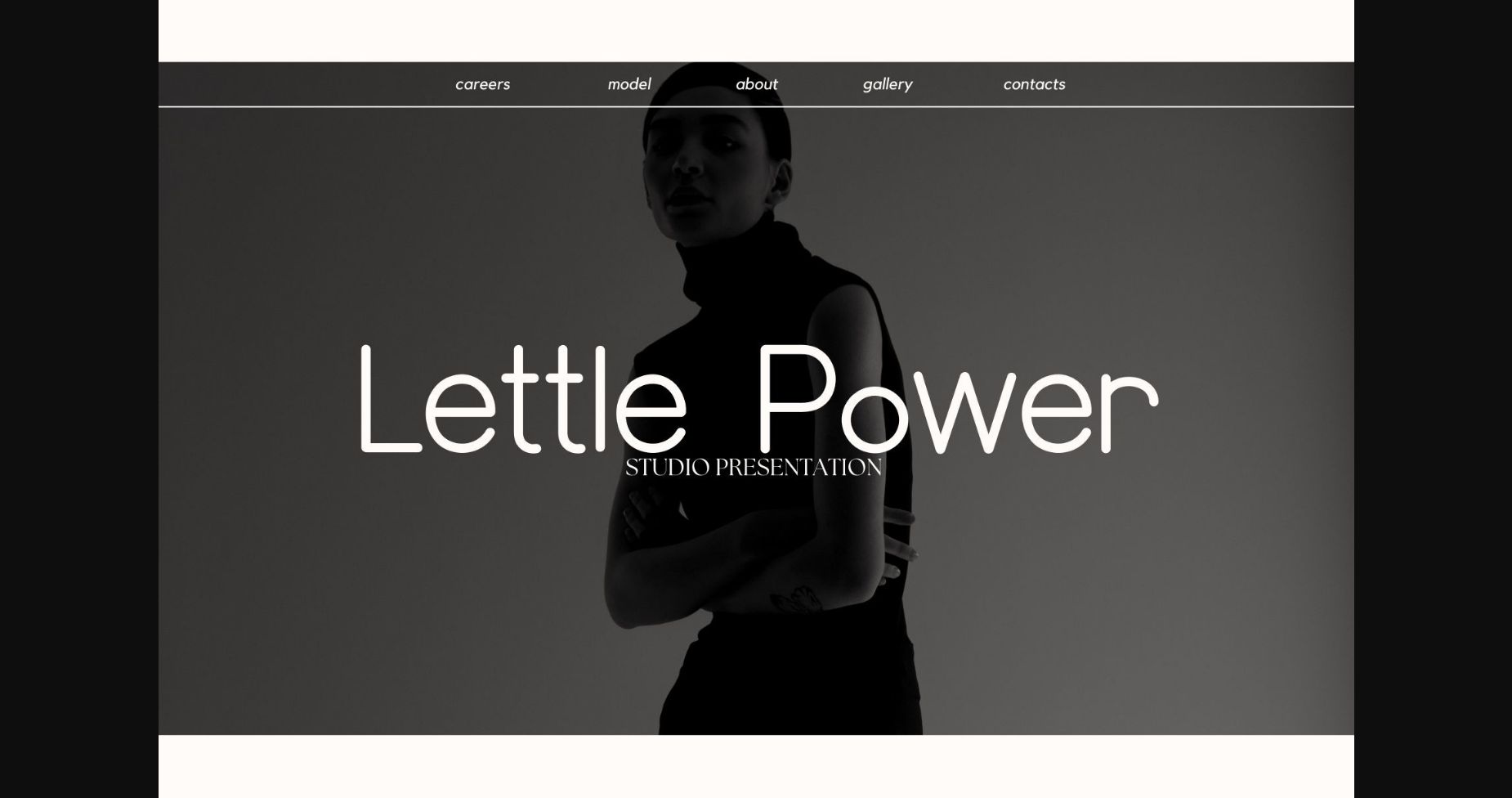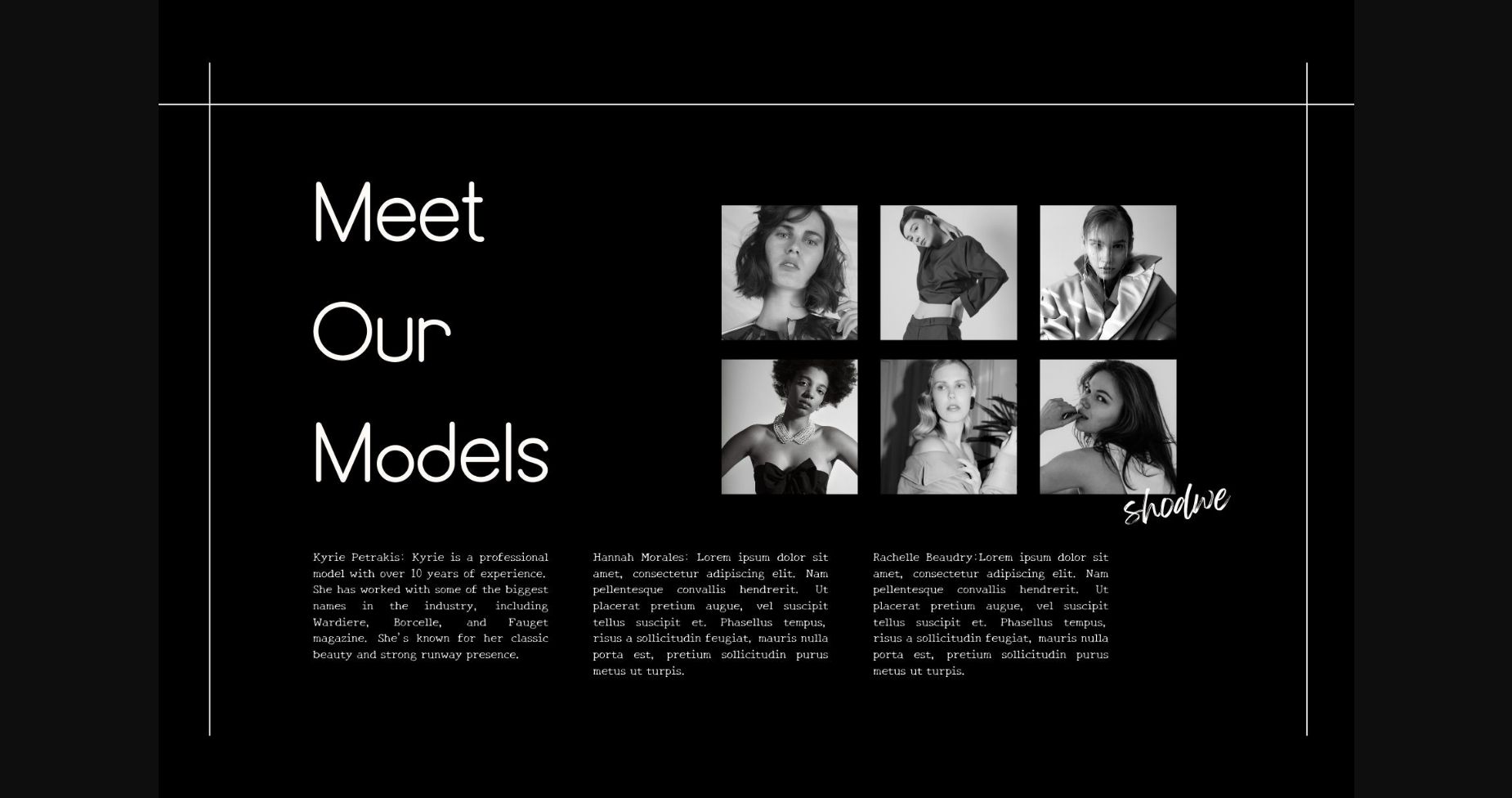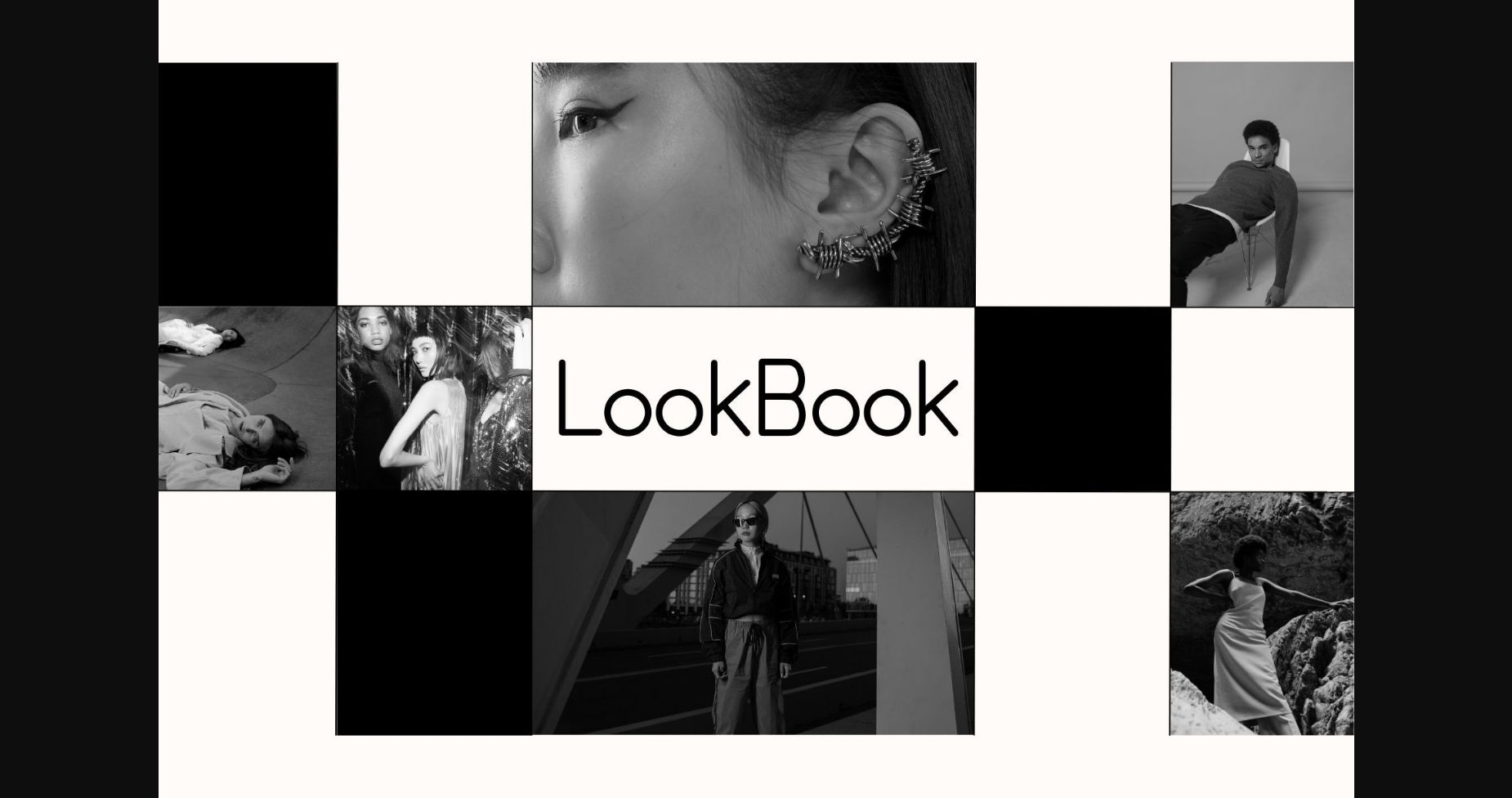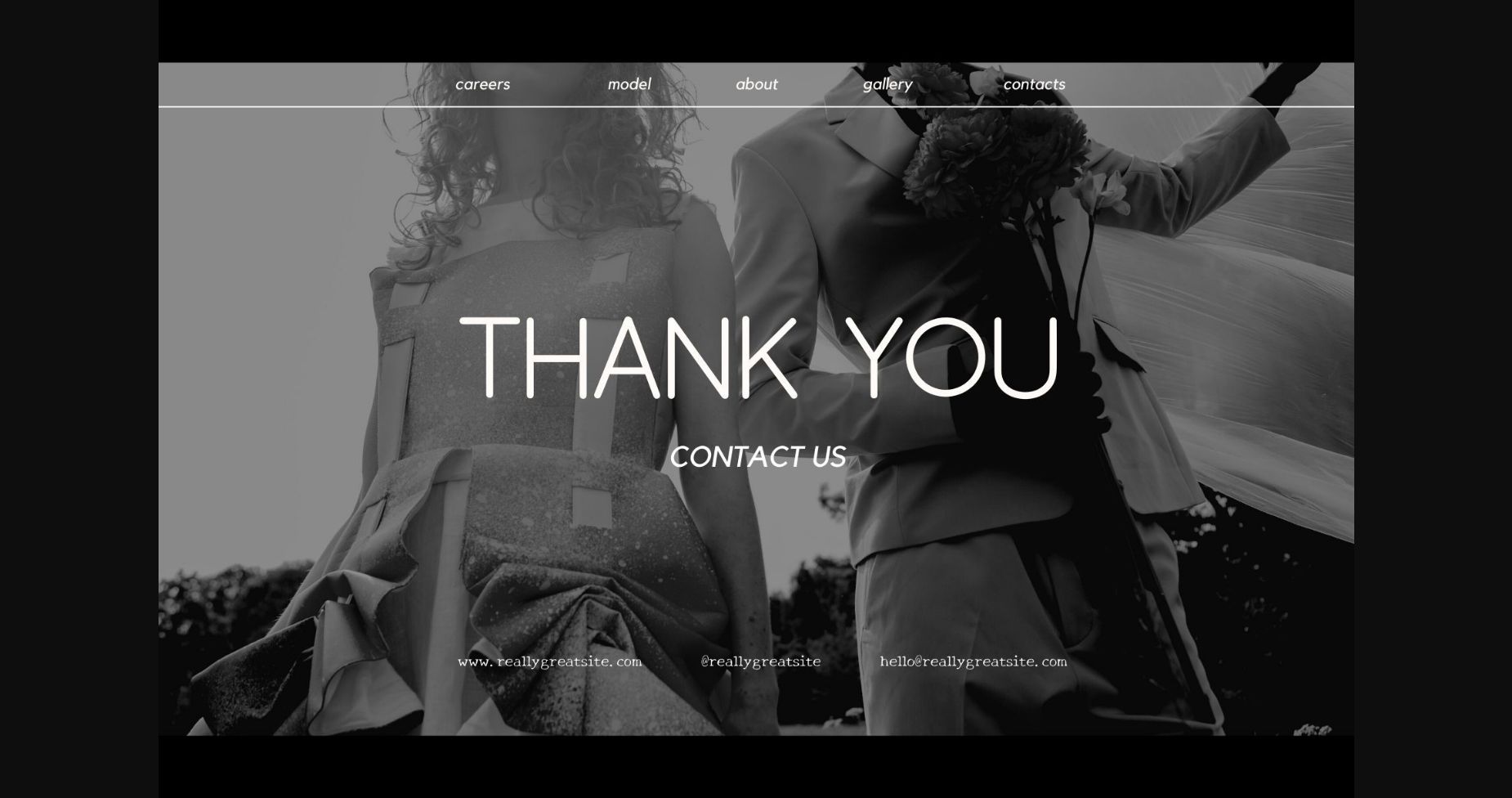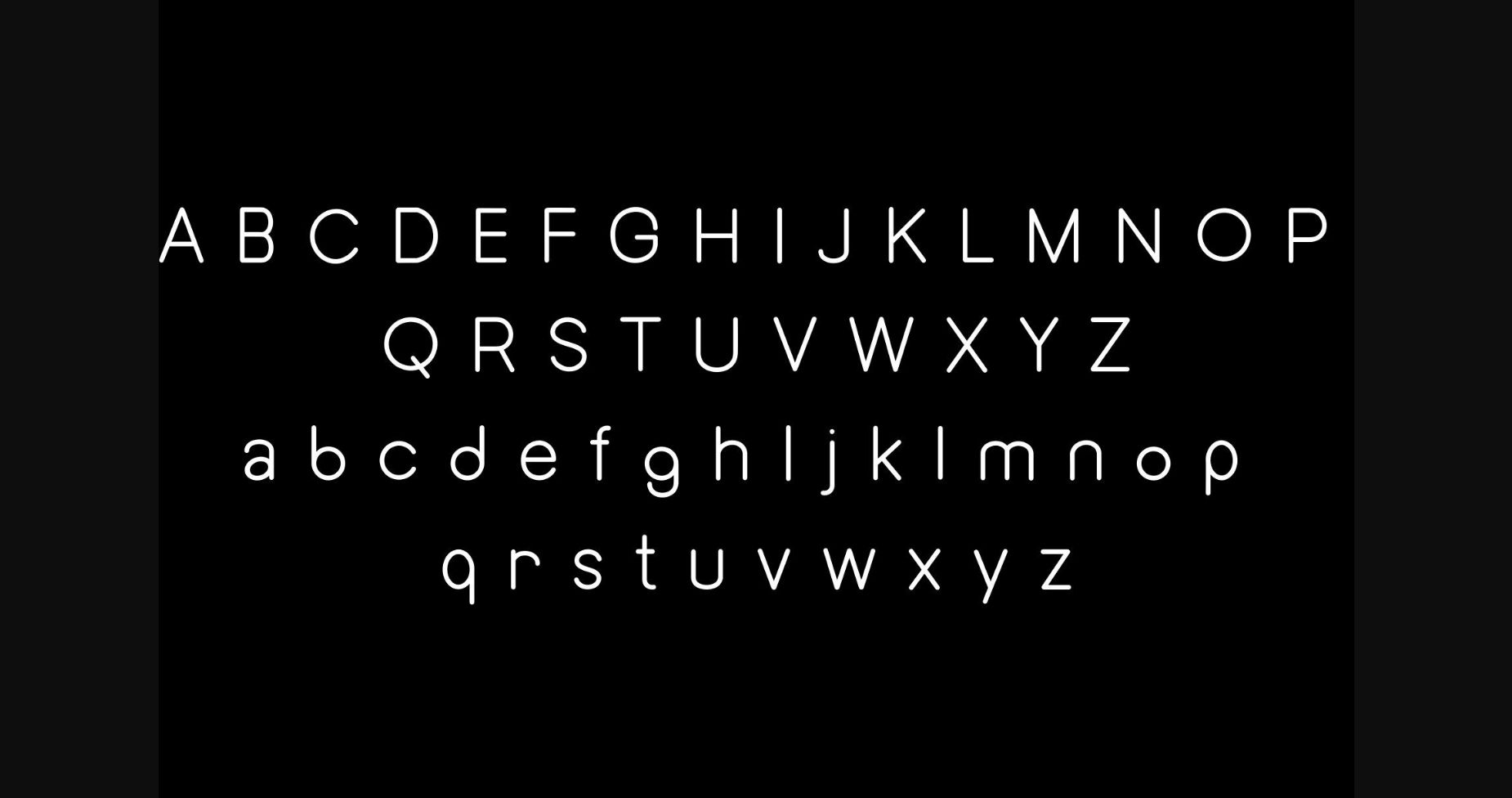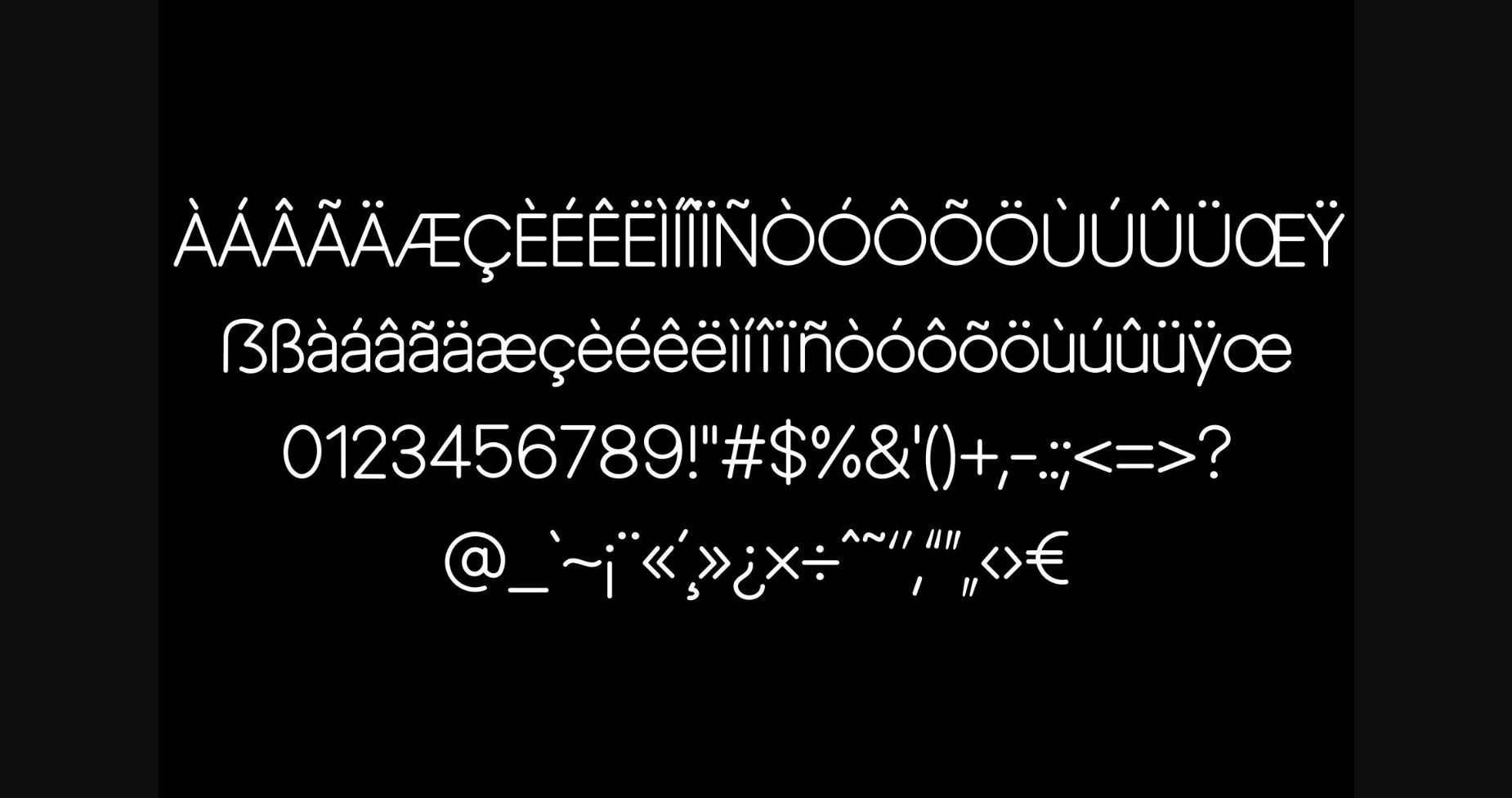
Lettle Power Font
About Lettle Power Font
Letter power is a cute, handwritten font. This playful sans-serif will look so good on your invites, cards, logos, and any other fun projects you are working on.